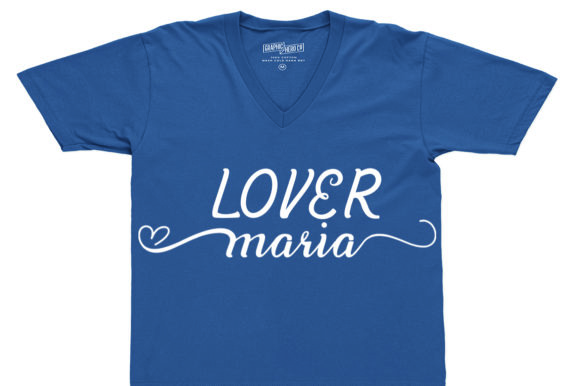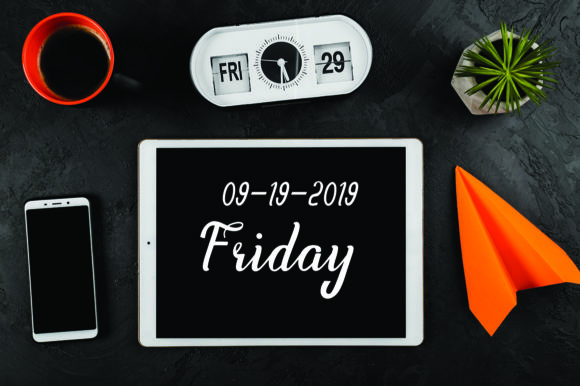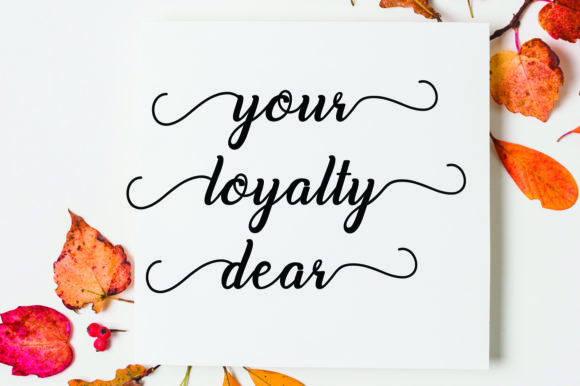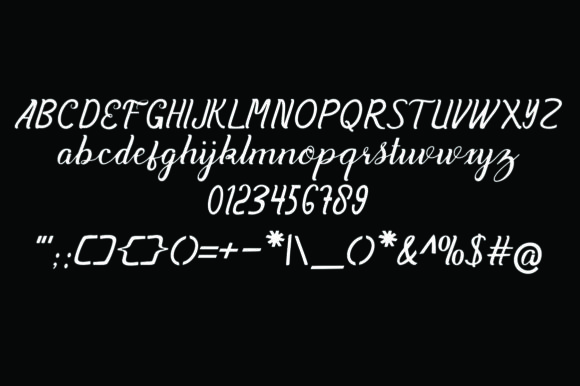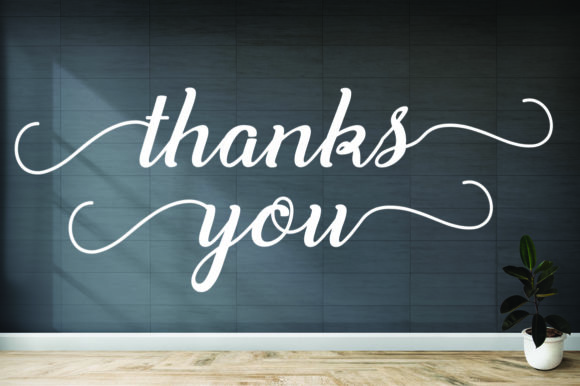
HomeScript FontsWanggler Font Script Fonts Wanggler Font FacebookXPinterestWhatsApp Wanggler Font Poster 2 Wanggler Font Poster 3 Wanggler Font Poster 4 Wanggler Font Poster 5 Wanggler Font Poster 6 About Wanggler Font Wanggler is a stylish script font with flowing letters. It is perfectly suited for a wide variety of projects! DOWNLOAD ON CREATIVE FABRICAThis font is sold and delivered by Creative Fabrica. Font Canyon may earn a commission if you buy through this link. People also explored Simple Master Font Blackmoon Font Orhydea Font Nature Green Font Sweety Font Melyana Font Blood Orange Duo Font Courage Union Sparkling Daisy Monogram Font 296 0 TagsWanggler Font Previous articleOphelie FontNext articleQuesky Font LEAVE A REPLY Cancel reply Comment: Please enter your comment! Name:* Please enter your name here Email:* You have entered an incorrect email address! Please enter your email address here Website: Save my name, email, and website in this browser for the next time I comment. Personal Use Free Bosque Font Personal Use Free Read more about this font Bajt Rounded Personal Use Free Read more about this font Black Jalal Personal Use Free Read more about this font Braindly Personal Use Free Read more about this font BLOG Top 10 Handwritten Fonts That Elevate Your Designs Top 10 Handwritten Fonts That Will Elevate Your Designs Handwritten fonts bring a warm, personal touch to every creative project. Whether you're designing logos, invitations,... Best Fonts for YouTube Videos: Make Your Thumbnails Stand Out How to Install and Use Fonts on Windows, macOS, and Web Projects Free Fonts Risk: Why Free Fonts Can Be Dangerous for Designers